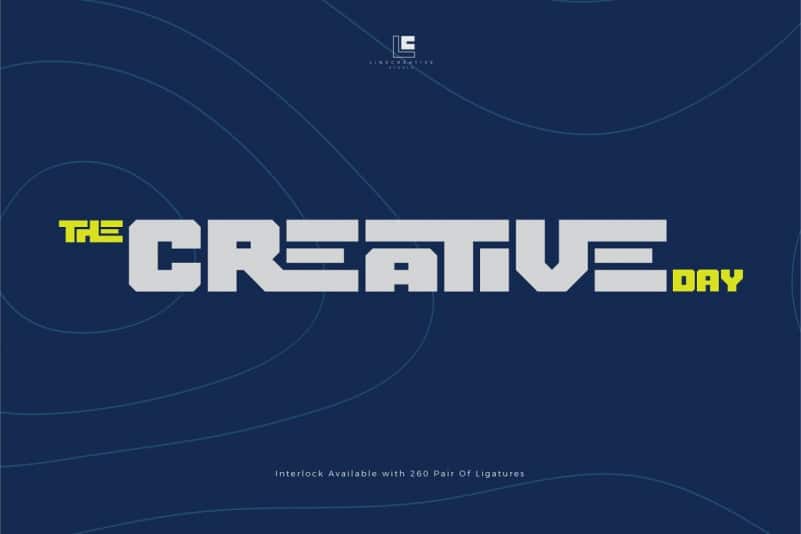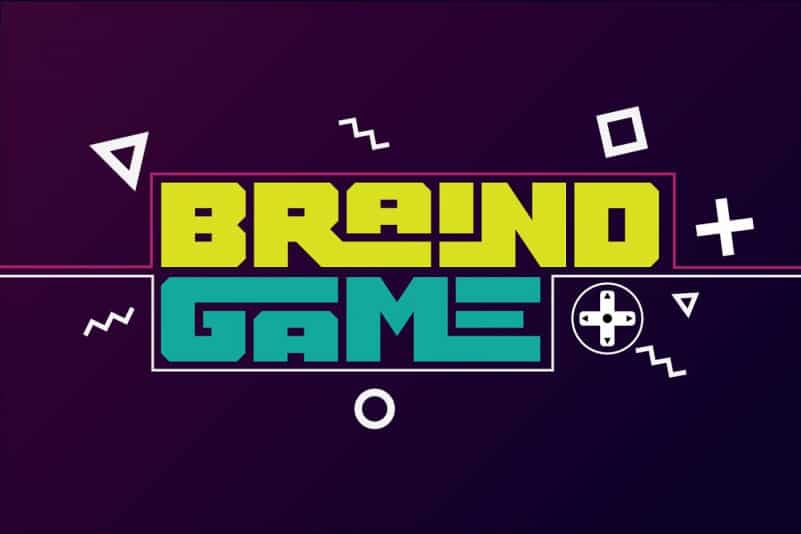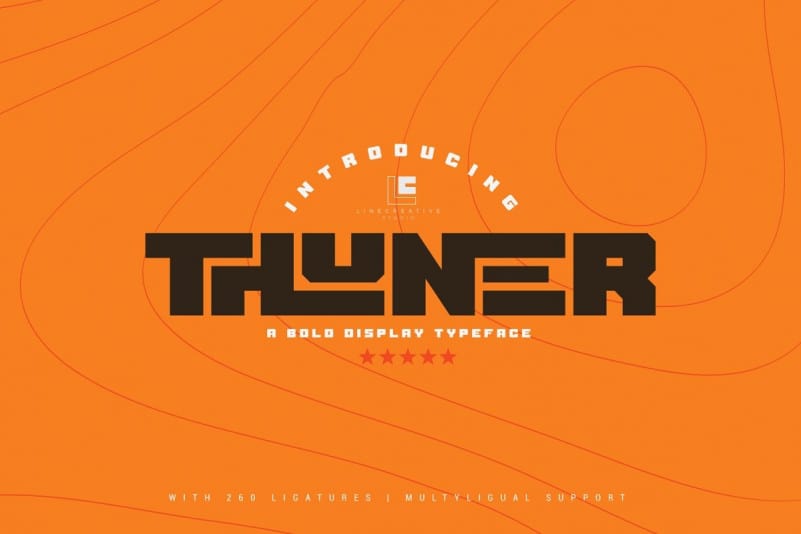
Thuner Display Font
Introduce Thuner Display Font, It’s has an opentype feature that will automatically turn each character into a binder. gives a cheerful impression, making it very easy to read and apply to all design projects. It is a bold script from the designer Linecreative. Thuner is a chunky bold typeface perfect for any fun quirky design work! This font is equipped with ligature will be very good for your work such as posters, logos, t-shirt designs, branding,or even large scale artwork.